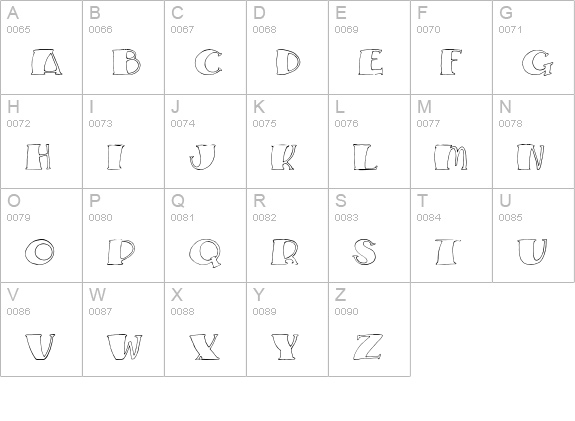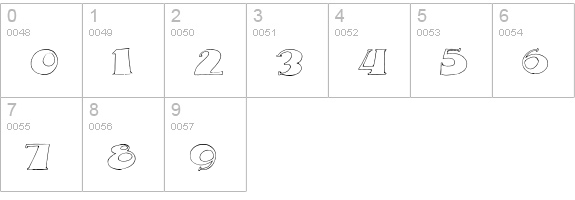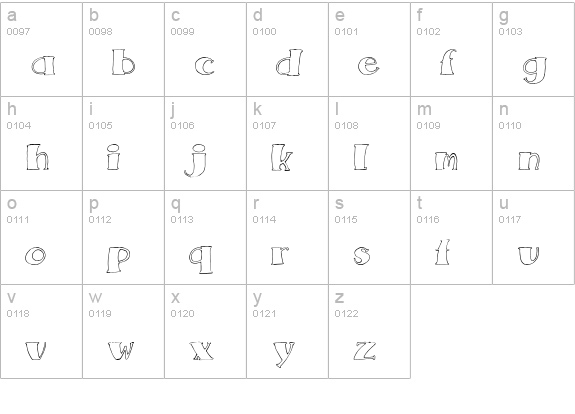
CK Baby Bug Plain Font Details
Introducing CK Baby Bug Plain font - a playful and whimsical typeface that is perfect for adding a touch of charm to your design projects. This delightful font features rounded edges and a fun, quirky style that is sure to catch the eye. Whether you're creating invitations, greeting cards, or social media graphics, CK Baby Bug Plain is a versatile choice that will bring a sense of joy to your work. And the best part? CK Baby Bug Plain is available for free download at FontsMarket.com. Simply visit the website to add this adorable font to your collection and start using it in your designs today. Don't miss out on the opportunity to access this fantastic font at no cost - elevate your creative projects with CK Baby Bug Plain now!